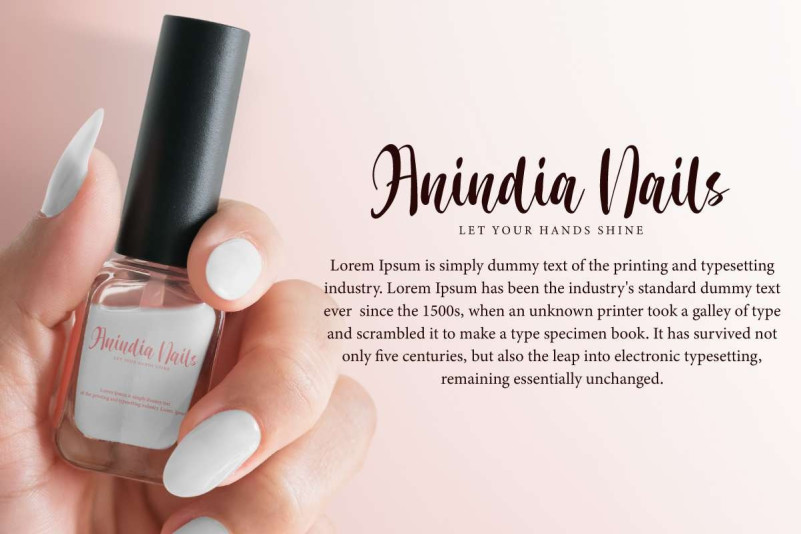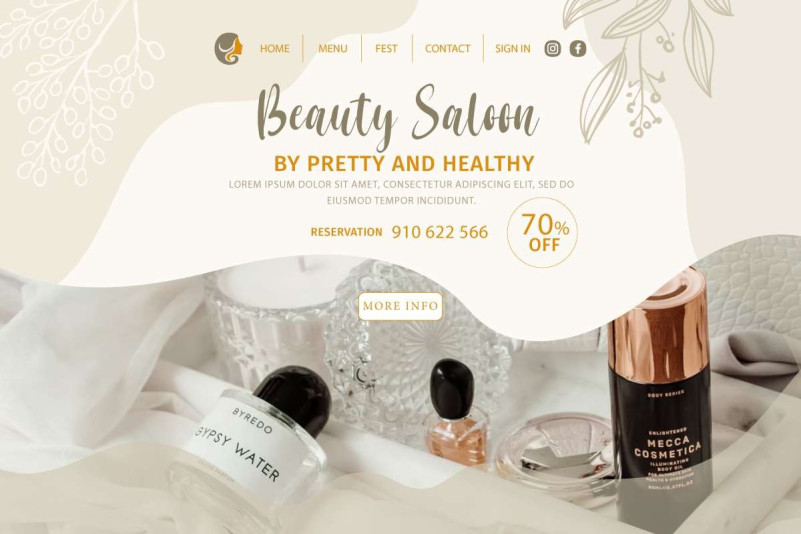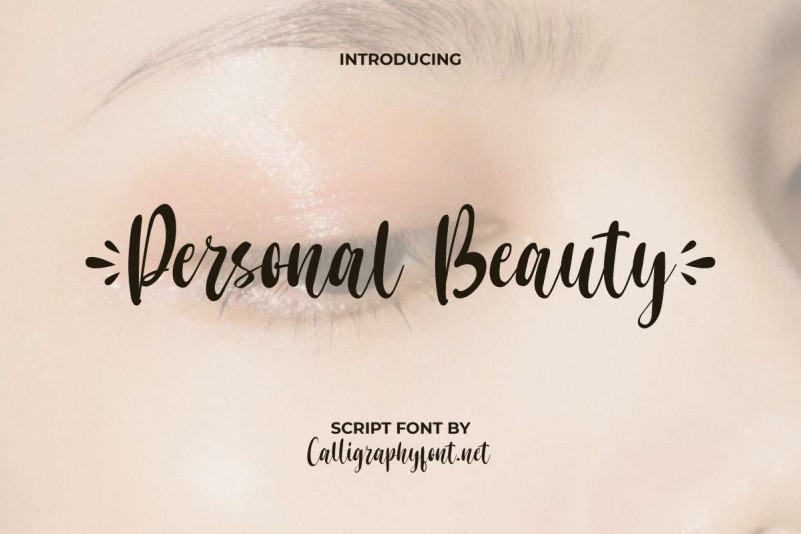
Personal Beauty Font
Personal Beauty Script Font is a beautiful delicate calligraphy script font with elegant awesome allure. This font is carefully crafted to create neat and flawless writing that will enhance any creative project, such as apps, brand logo, cover, embossed design, label, product packaging, quote, screen print, stationery, sticker, watermark, website, title, and other projects that require an elegant touch.
Personal Beauty Font gives a modern look that is not boring and can make it a great choice for any industry, accessories, boutique, cosmetic, event organizer, florist, furniture, jewelry, nail art, printing, publishing, real estate, restaurant, spa salon, writer, etc. This font is here and ready to accompany you with real personal beauty nuances.